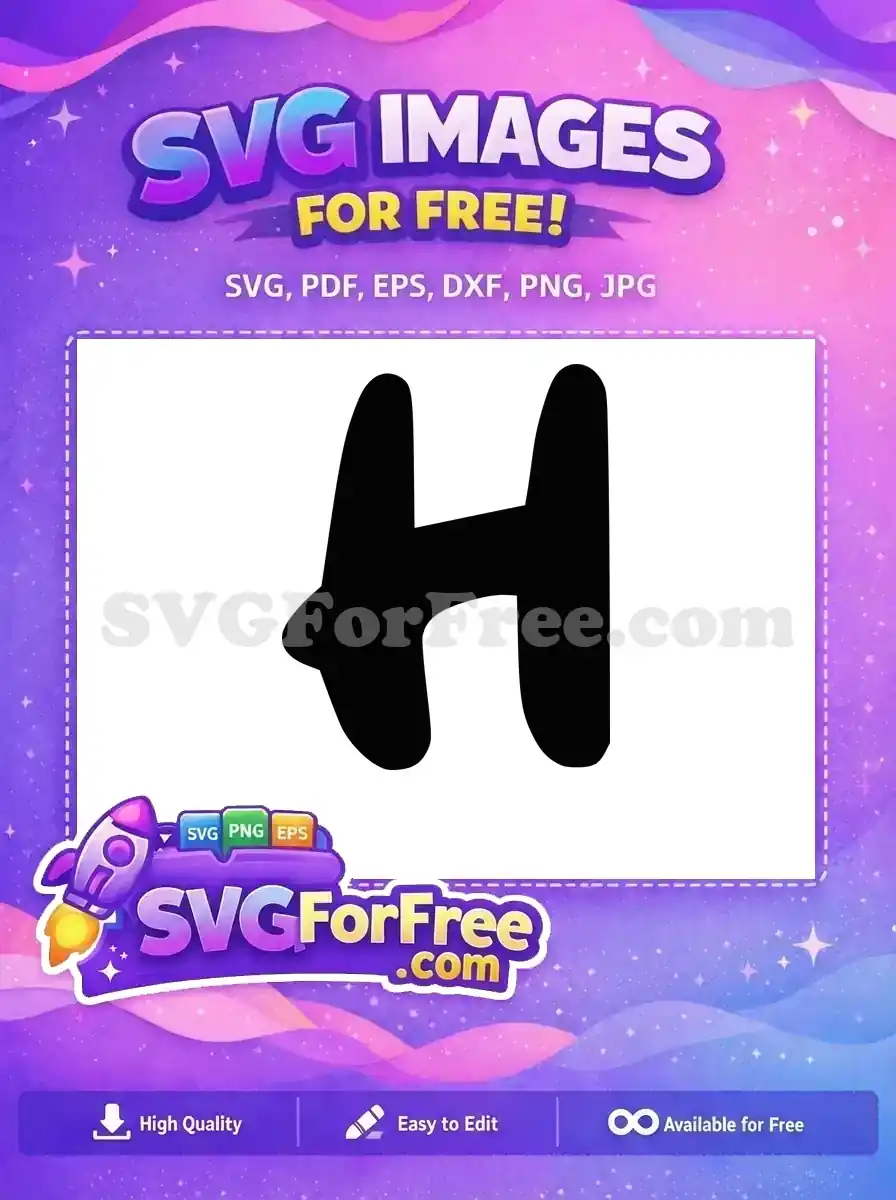
Free Minnie Font Initial Free Letter H Minnie Free SVG – Instant Download
Bubbly black letter H in a fun font style, free vector.
Free Minnie Font Initial Free Letter H Minnie Free SVG